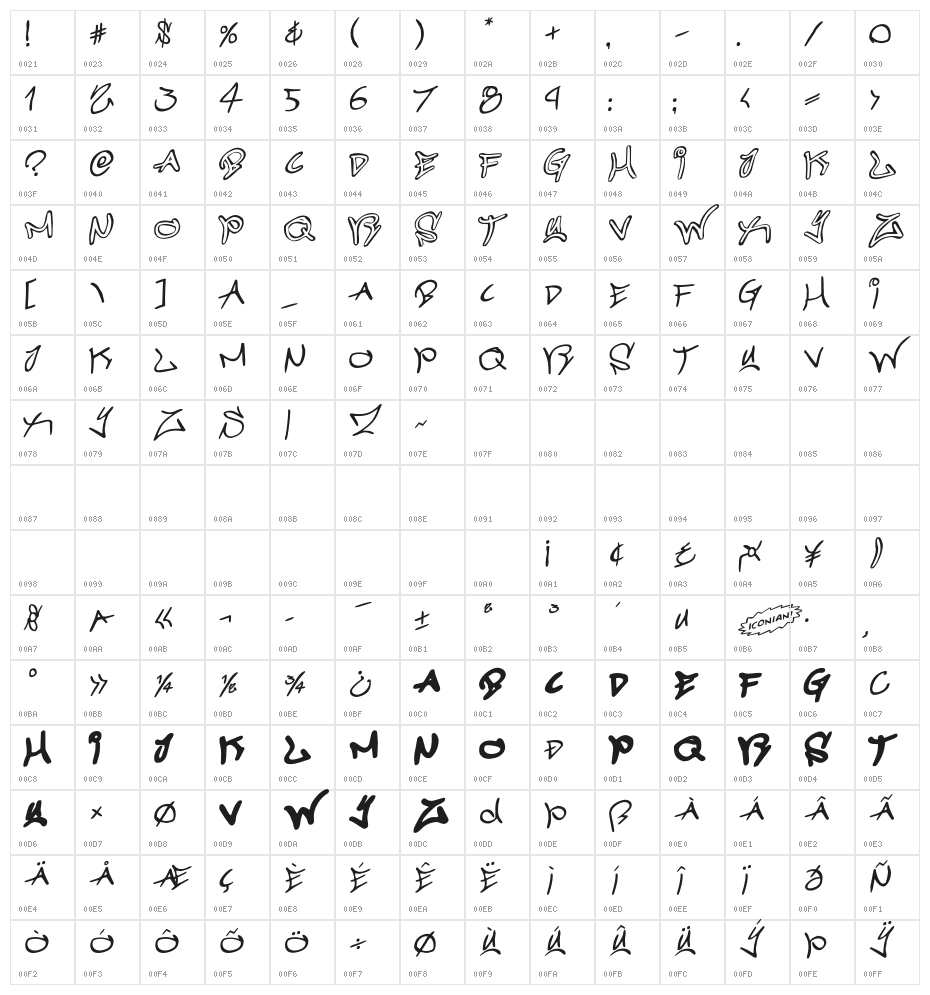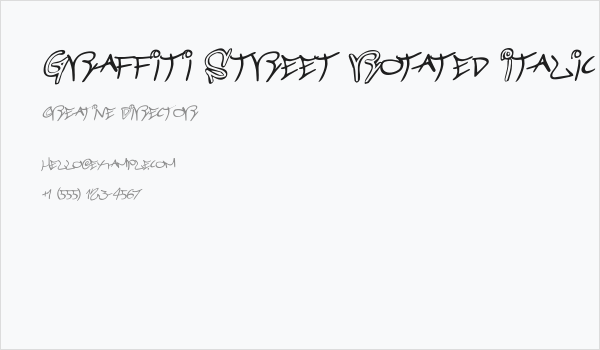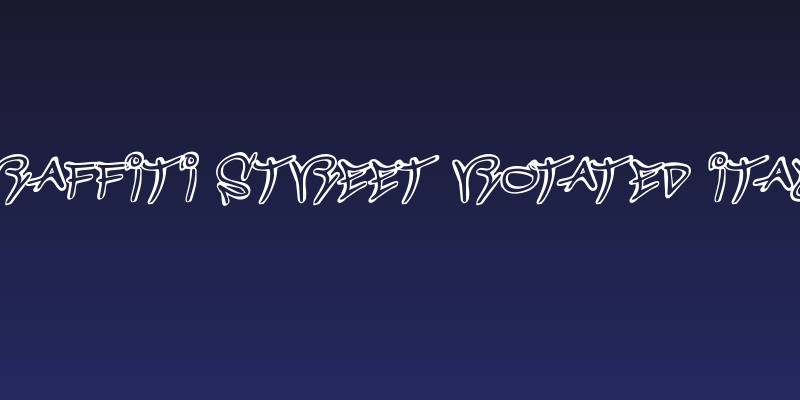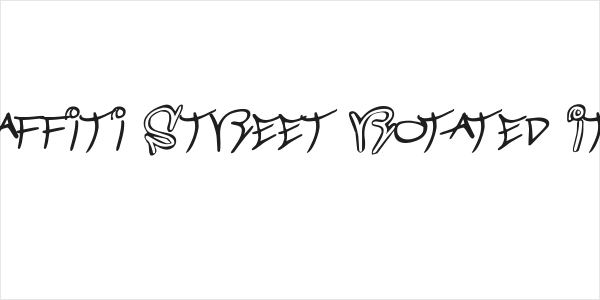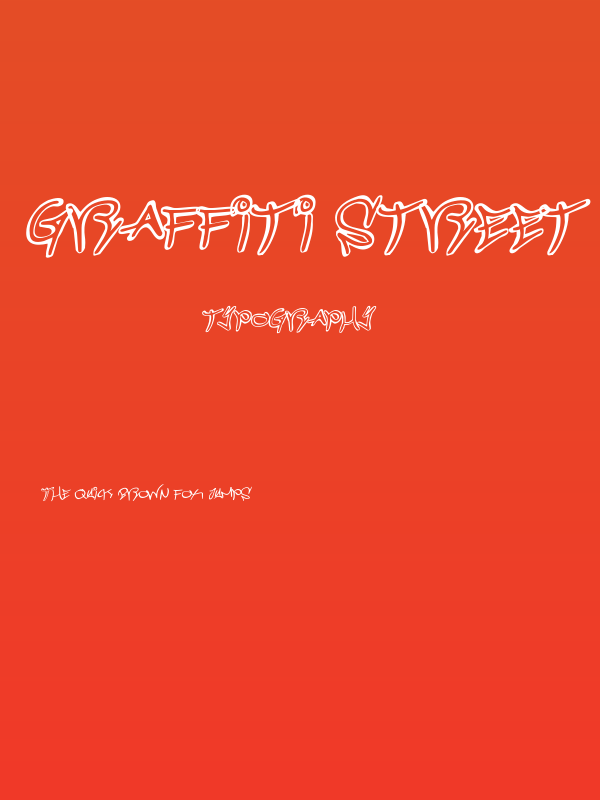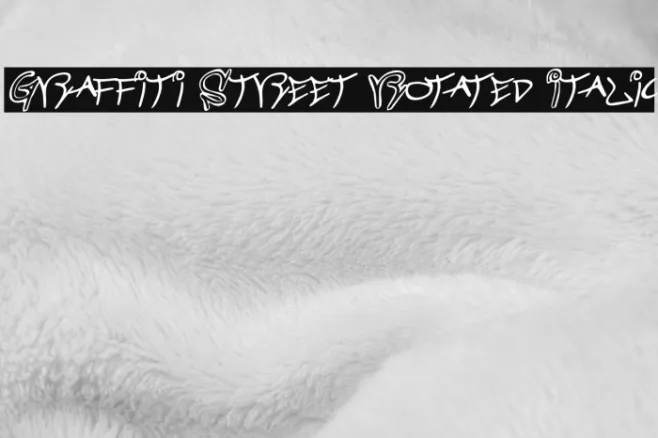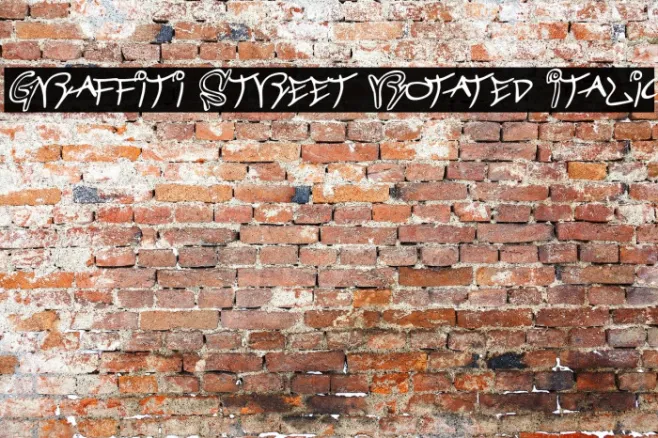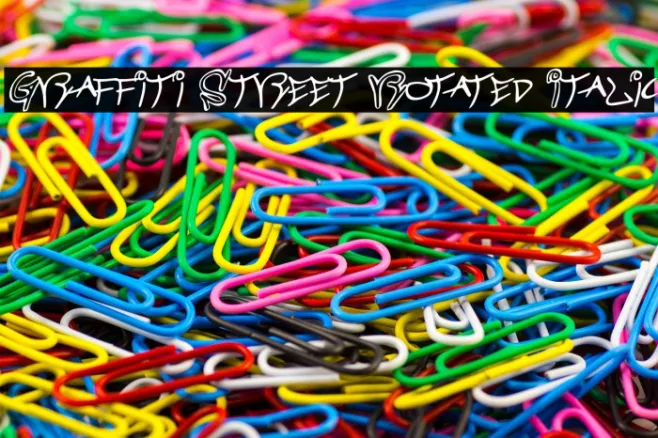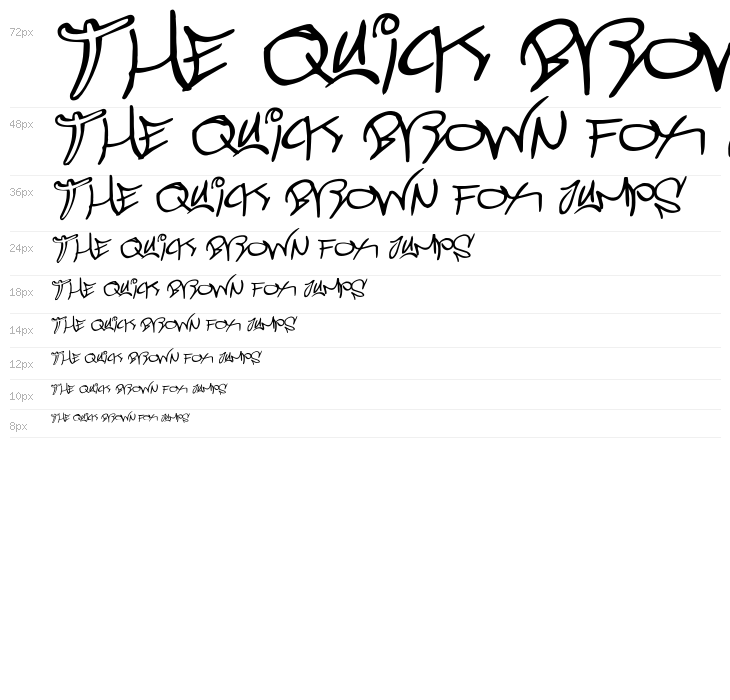
Graffiti Street Rotated Italic Font
Graffiti Street Rotated Italic Description
This font exudes a dynamic and urban vibe, reminiscent of street art and graffiti. The characters are bold and fluid, with an italic slant that adds a sense of movement and energy. Each letter is uniquely styled, with exaggerated curves and sharp angles that create a sense of spontaneity and creativity. The numbers and special characters follow the same expressive style, making the font suitable for projects that require a bold and artistic touch. The overall appearance is both edgy and modern, perfect for capturing attention and conveying a sense of rebellion or artistic flair.
| Overall Style | Modern, Urban |
| Use Case | Logos, Posters, Headlines |
| Proposed Projects | Ideal for street art designs, urban-themed posters, music album covers, and edgy branding projects. |